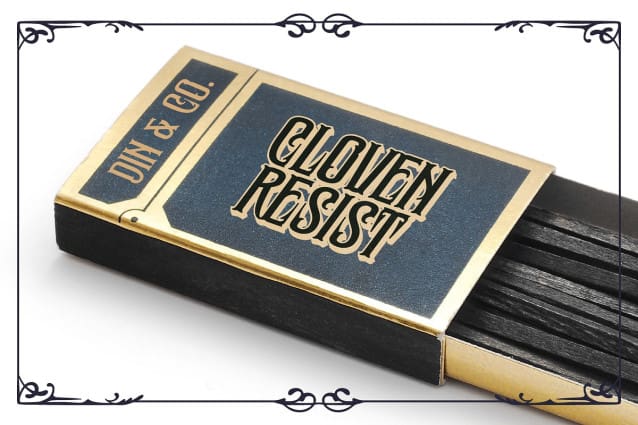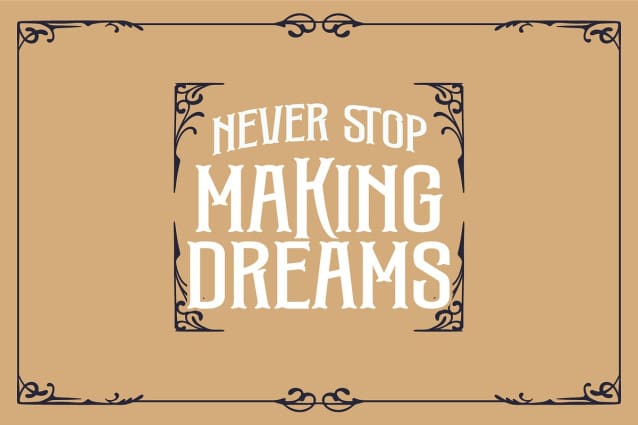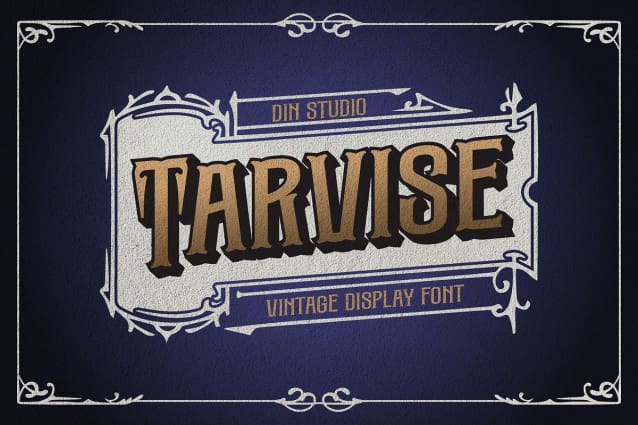
Tarvise Vintage Font
Tarvise Vintage Font , a bold and timeless display font with a vintage aesthetic that commands attention. Crafted in uppercases with a solid, bold weight, Tarvise boasts clean and consistent letterforms that deliver a powerful presence. Its sturdy shapes are perfect for designs that need a bold yet polished look. Plus, with an available extrude version, Tarvise adds depth and dimension to your projects. This font gives ornament sets as extra.